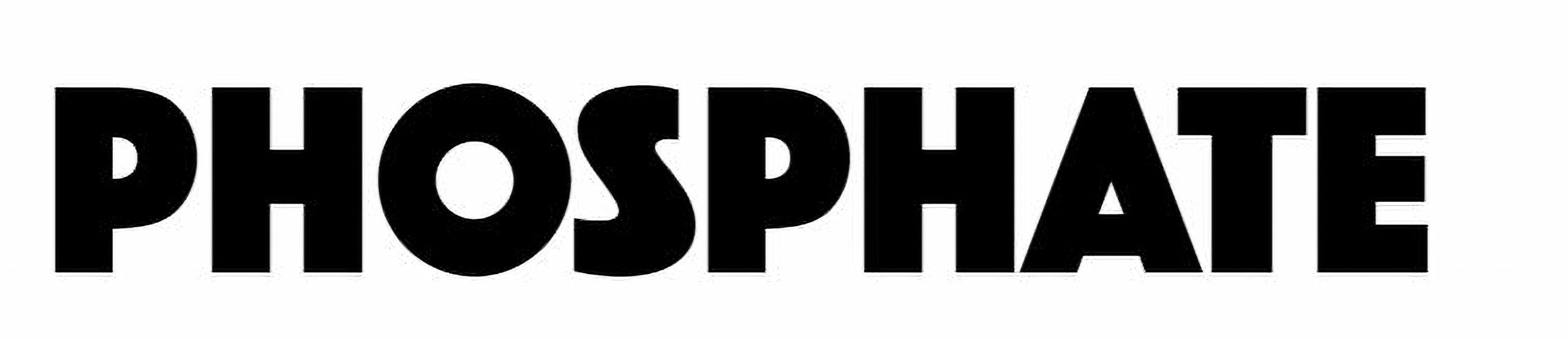
Phosphate Font
Steve Jackaman and Ashley Muir designed Phosphate, an iconic, high-impact all-caps sans-serif display font family, and released it through the Red Rooster Collection in 2010. Phosphate Solid and Phosphate Inline—two historic uppercase metal typefaces originally created by the International Typefoundry (ITF)—heavily inspired it.
What You Can Type With Phosphate
Phosphate covers the full alphabet in upper and lowercase, plus all ten numbers, so you can set names, dates and prices without switching fonts. Common punctuation such as &, !, ? and @ is included as well. It also has the accented letters you need for Spanish, French, German, Portuguese and Italian.
Where Phosphate Works Best
Phosphate is a natural fit for posters, logos and eye-catching headlines. Use it for one standout word or headline and let simpler fonts handle the rest.
Does Phosphate support accented letters?
Yes. Phosphate includes the accented letters needed for Spanish, French, German, Portuguese and Italian, so it works for more than just English.